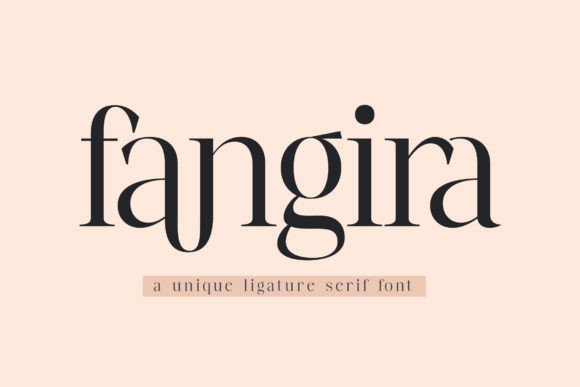
Fangira Font: Elevate Your Designs with Elegance and Sophistication
In the world of typography, fonts play a crucial role in conveying the tone and personality of a brand, product, or creative project. For designers and crafters seeking a typeface that exudes elegance, luxury, and sophistication, Fangira Font is an exceptional choice. This modern and classic serif font boasts a unique style and fancy look, making it perfect for a wide range of applications, from elegant logos and book or movie titles to fashion brands, magazines, and more.
What Makes Fangira Font Stand Out?
Fangira Font is distinguished by its distinctive serif design, which combines traditional elements with a modern twist. The font’s unique style is characterized by its clean lines, precise curves, and a sophisticated flair that adds a touch of luxury to any design. Whether you’re working on a high-end fashion brand, a literary masterpiece, or a cinematic production, Fangira Font provides the perfect typographic solution.
Key Features of Fangira Font
• Modern and Classic Serif Design: Fangira Font seamlessly blends traditional serif elements with a modern aesthetic, creating a unique and captivating visual identity.
• Elegant and Luxurious: The font’s sophisticated design makes it ideal for projects that require a high level of elegance and refinement, such as luxury logos, fashion brands, and high-end product design.
• Versatile: Fangira Font is incredibly versatile, suitable for a wide range of applications, including book and movie titles, magazine layouts, clothing designs, lettering, quotes, and more.
• Highly Readable: Despite its elegant design, Fangira Font maintains a high level of readability, making it perfect for body text, headings, and titles.
Use Cases for Fangira Font
Fangira Font’s versatility and elegance make it suitable for various design projects, including:
• Elegant Logos: Create stunning logos for luxury brands, fashion labels, and high-end products that exude sophistication and refinement.
• Book and Movie Titles: Add a touch of elegance to book covers, movie posters, and film titles with Fangira Font’s unique serif design.
• Fashion Brands: Elevate fashion brand identities with a font that embodies luxury, style, and sophistication.
• Magazine Layouts: Use Fangira Font to create visually appealing magazine layouts, adding a level of elegance and refinement to your publication.
• Clothing Designs: Incorporate Fangira Font into clothing designs, such as t-shirts, hoodies, and dresses, to add a touch of luxury and style.
• Lettering and Quotes: Create stunning lettering and quote designs for social media, posters, and other marketing materials.
Fangira Font is a versatile and elegant serif font that offers a unique blend of modern and classic design elements. Its sophisticated aesthetic makes it perfect for a wide range of applications, from luxury logos and fashion brands to book and movie titles, magazine layouts, and more. By incorporating Fangira Font into your design projects, you’ll be able to elevate your work with elegance, sophistication, and a touch of luxury.